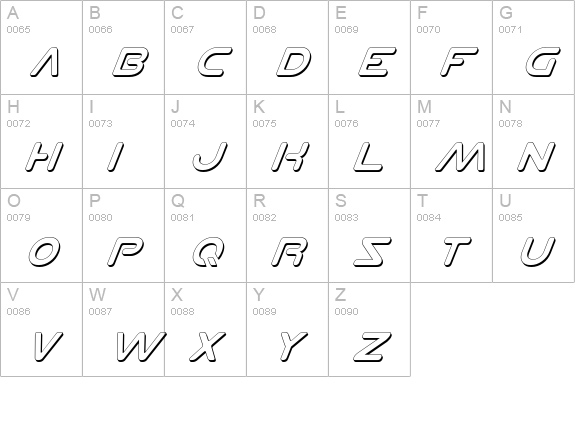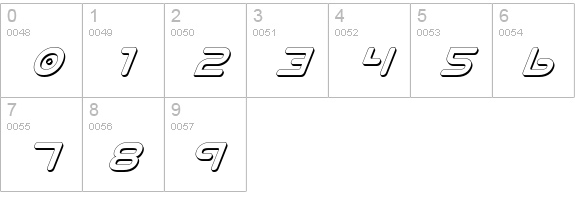
Planet N Shadow Italic Font Details
Planet N Shadow Italic is a distinctive, italic variant in the Planet typeface family \xE2\x80\x94 well suited to design and typography projects.
Planet N Shadow Italic font is a striking and captivating typeface that exudes elegance and sophistication. Its unique design features bold, slanted letterforms with shadow effects, creating a visually stunning effect on any design project. This font is perfect for adding a touch of drama and flair to your designs. Its italic style adds a sense of movement and dynamism, making it an ideal choice for titles, headings, logos, and other creative projects. Whether you're designing a poster, a website, or a branding project, Planet N Shadow Italic font will surely make a lasting impression. One of the best things about Planet N Shadow Italic font is that it is free. Yes, you heard it right! This incredible font is freely available to download at FontsMarket.com. You can access this font without any cost, allowing you to add a touch of sophistication to your designs without breaking the bank. Not only is Planet N Shadow Italic font visually stunning, but it is also highly versatile. It is compatible with various design software and can be used on both digital and print projects. Its high-quality and well-crafted design ensures that your text will always look sharp and professional. With its bold and captivating style, Planet N Shadow Italic font is sure to grab attention and make your designs stand out from the crowd. So why wait? Head over to FontsMarket.com and download this amazing font for free today!